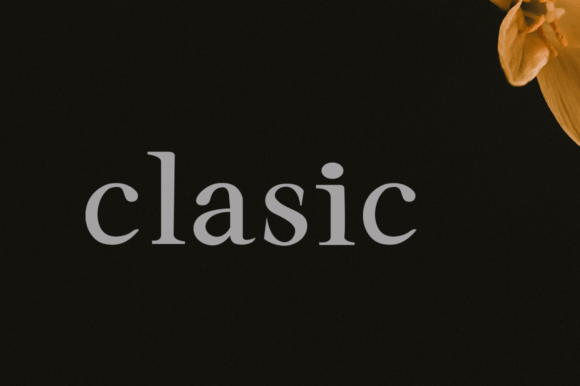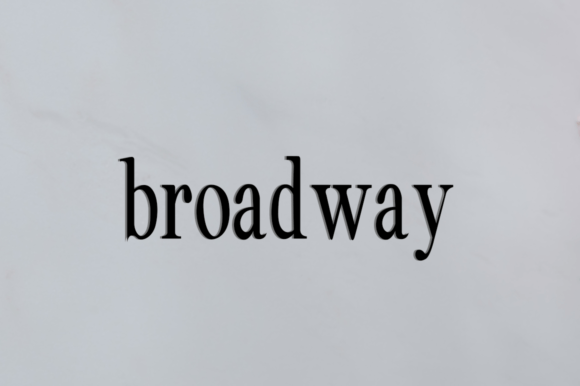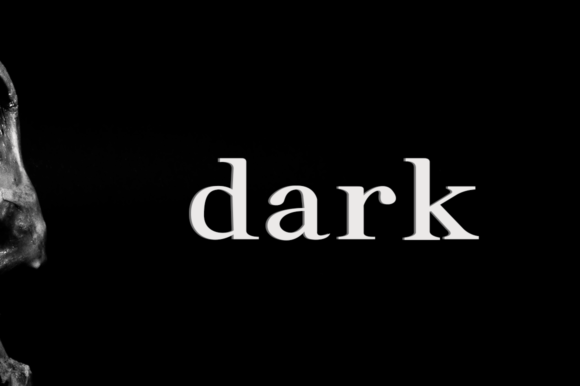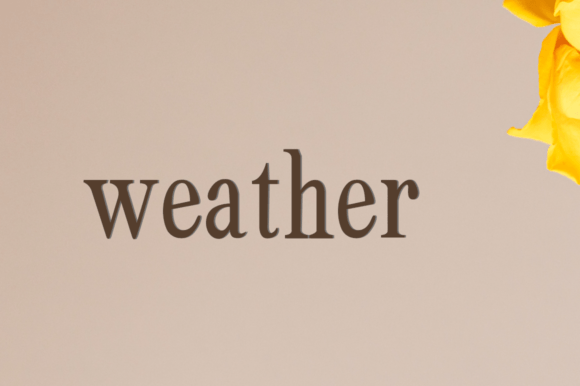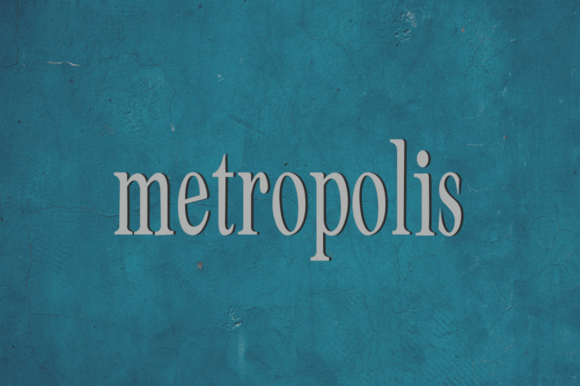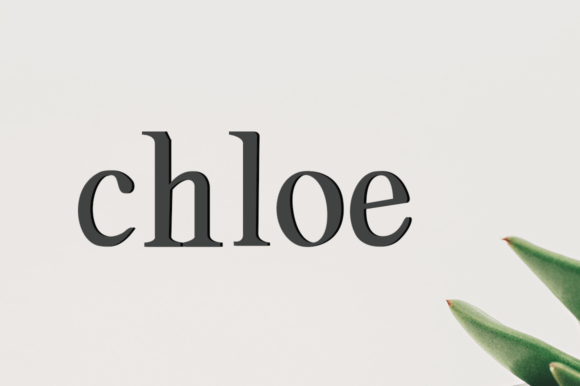
Discover the Elegance of Harlow Font: Elevate Your Designs with a Classy and Modern Serif
In the realm of typography, fonts play a pivotal role in conveying the tone and aesthetic of a design project. Among the myriad of fonts available, the Harlow Font stands out for its distinctive blend of classic elegance and modern sophistication. This article delves into the characteristics, uses, and benefits of the Harlow Font, making it an indispensable resource for designers and crafters looking to infuse their projects with a touch of luxury and refinement.
What is Harlow Font?
Harlow Font is a classy and modern serif font renowned for its unique style and neat appearance. Serif fonts, characterized by the small lines or flourishes at the ends of the letters, have long been associated with traditional and classic designs. Harlow Font, however, brings a fresh and contemporary twist to this timeless category. Its design elements are meticulously crafted to offer a clean and sophisticated look, making it an excellent choice for projects that demand elegance and poise.
Key Features of Harlow Font
- Unique Style: The Harlow Font boasts a distinctive style that sets it apart from more traditional serif fonts. Its letters are designed with a modern flair, ensuring that your designs stand out with a fresh and updated look.
- Neat and Clean Appearance: One of the hallmarks of the Harlow Font is its neat and clean appearance. This makes it incredibly versatile, suitable for a wide range of design projects from elegant logos to stylish magazines.
- Elegant and Luxurious Feel: The font exudes an air of luxury and sophistication, making it the perfect choice for high-end branding, fashion magazines, and any project that requires a touch of class.
Uses of Harlow Font
The versatility of the Harlow Font is one of its most appealing attributes. Its elegant and modern design makes it suitable for a variety of applications, including:
- Elegant and Luxurious Logos: Create memorable and sophisticated logos for high-end brands or luxury products.
- Book or Movie Title Designs: Add a touch of class to book covers or movie titles, making them stand out with a unique and stylish font.
- Fashion Brands: Ideal for fashion magazines, clothing brands, and accessories, where style and elegance are paramount.
- Magazines and Publications: Elevate the look of your magazine or publication with a font that exudes sophistication and class.
- Quotes and Typography: Use Harlow Font to give quotes and typographic designs a unique and stylish look that captures attention.
Benefits of Using Harlow Font
Choosing Harlow Font for your design projects comes with several benefits:
- Enhances Brand Image: The elegant and luxurious feel of the Harlow Font can significantly enhance the brand image, making it more appealing to the target audience.
- Versatility: Its versatility means it can be used across various design projects, offering great value for designers and crafters.
- Unique Style: The font’s unique style ensures that your designs stand out in a crowded marketplace, capturing attention and making a lasting impression.
How to Use Harlow Font Effectively
To maximize the impact of the Harlow Font, consider the following tips:
- Pair with Complementary Fonts: When using Harlow Font in combination with other fonts, choose ones that complement its elegance and modernity.
- Consider Context: Ensure that the font’s style aligns with the project’s context and message. The Harlow Font is perfect for projects that require a sophisticated and luxurious feel.
- Experiment with Sizes and Colors: Don’t be afraid to experiment with different sizes and colors to find the perfect combination that enhances your design.
In conclusion, the Harlow Font is a powerful tool for designers and crafters looking to add a touch of elegance and modernity to their projects. Its unique style, neat appearance, and luxurious feel make it an excellent choice for a wide range of applications. By understanding its features, uses, and benefits, you can leverage the Harlow Font to elevate your designs and make a lasting impression on your audience.